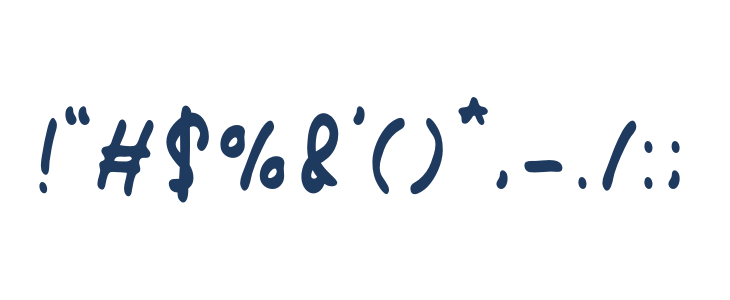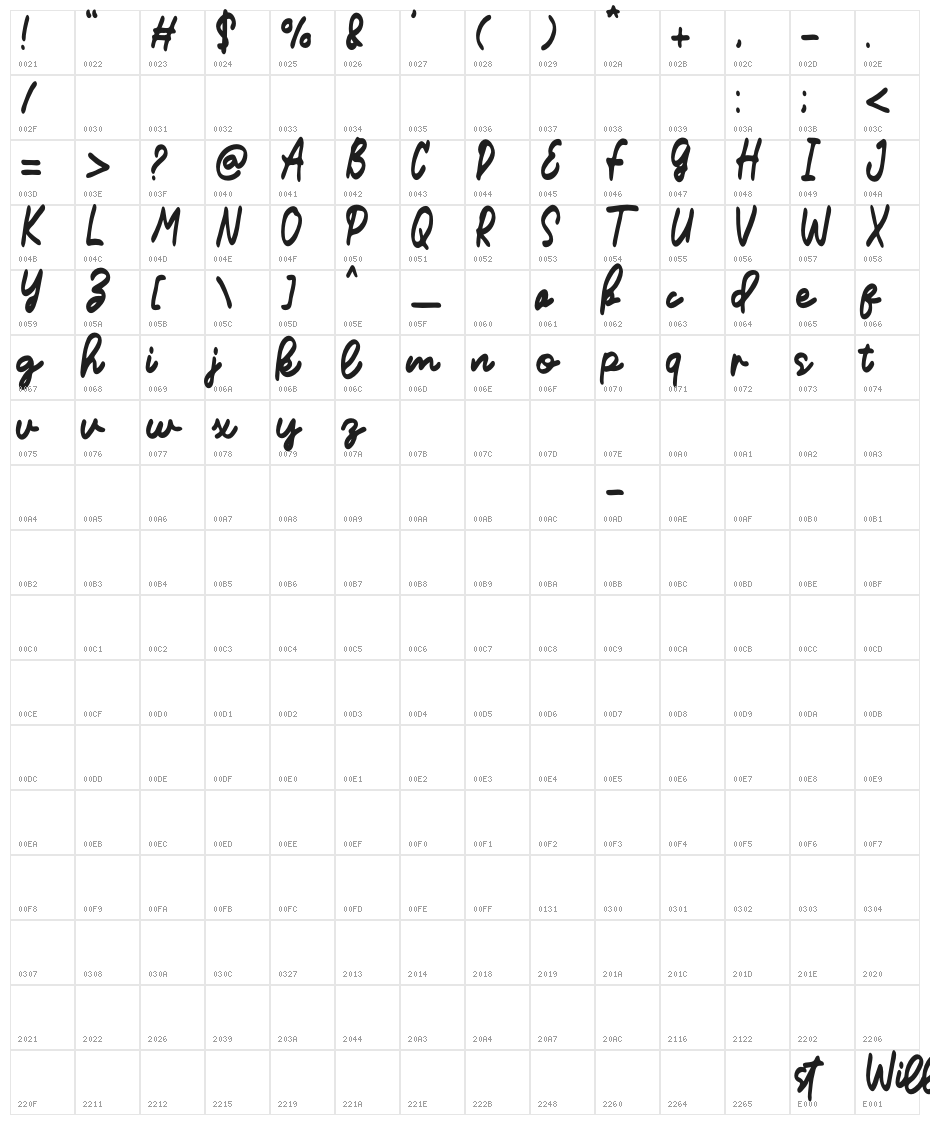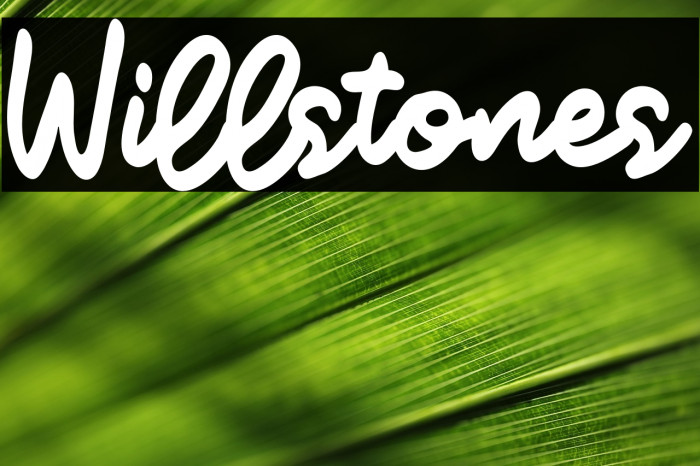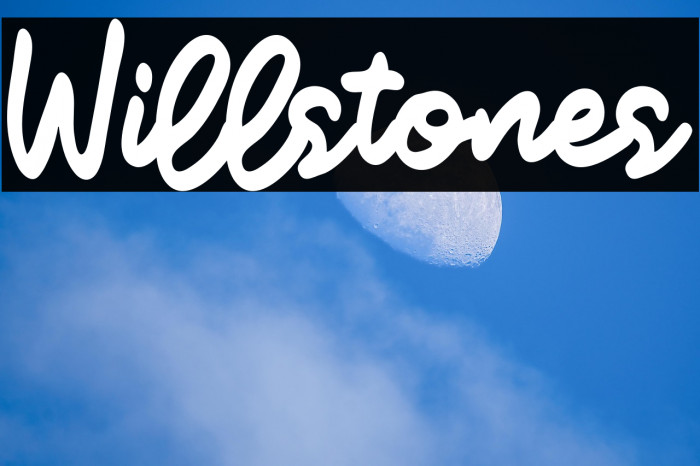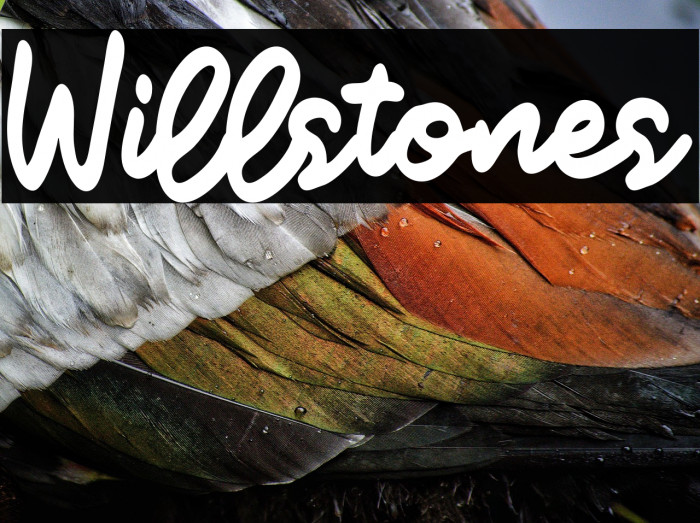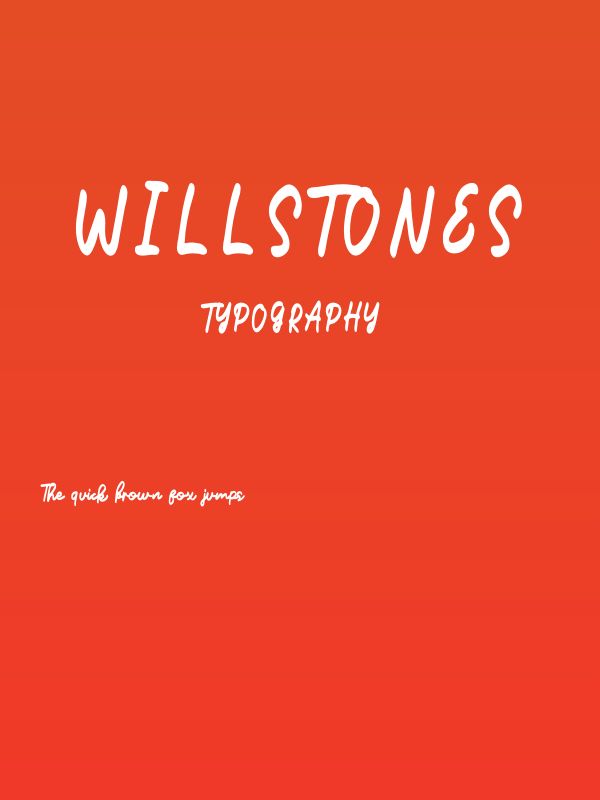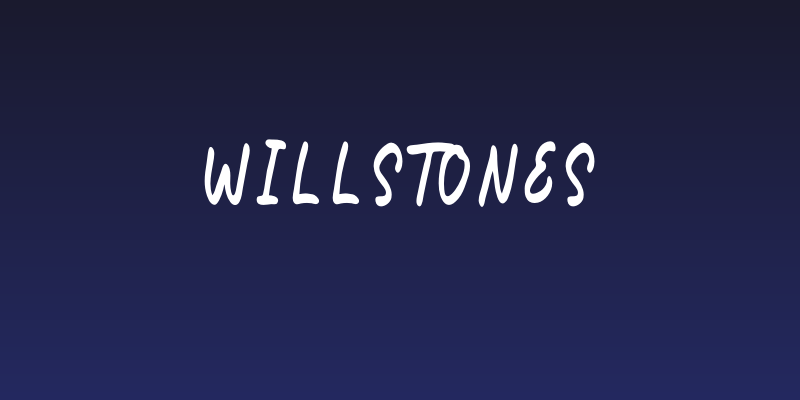
Willstones Font
Willstones Description
This font features a bold, handwritten style with a smooth, flowing script. The uppercase letters are slightly more structured, maintaining a consistent height and width, while the lowercase letters exhibit a more fluid and connected appearance, resembling natural handwriting. The characters are well-balanced, with a slight slant that adds to the casual and approachable feel. The numbers and special characters maintain the same handwritten aesthetic, ensuring a cohesive look across all text. This font is ideal for projects that require a personal touch, such as invitations, greeting cards, or branding materials.
| Overall Style | Casual, Personal |
| Proposed Projects | Ideal for invitations, greeting cards, branding, and personal projects. |